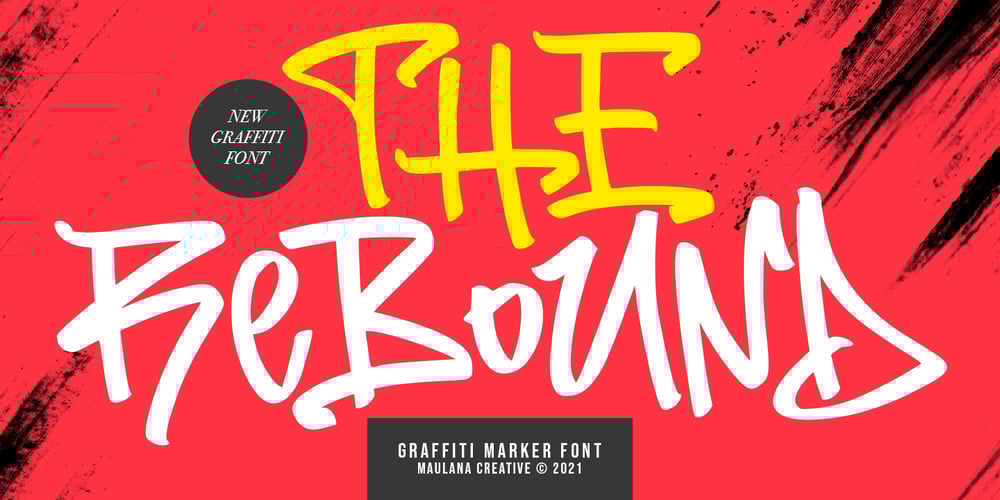
The Rebound Font Family was designed by Gilang Maulana and published by Maulana Creative. The Rebound contains 1 styles and family package options. The Rebound is a Graffiti style Marker font. With Bold marker stroke, Back slant and fun character with a bit of ligature and bit lower alternate. To give you an extra creative work. The Rebound font support multilingual more than 100+ language. This font is good for logo design, Social media, Movie Titles, Books Titles, a short text even a long text letter and good for your secondary text font with sans or serif. Make a stunning work with The Rebound font. Cheers, MaulanaCreative